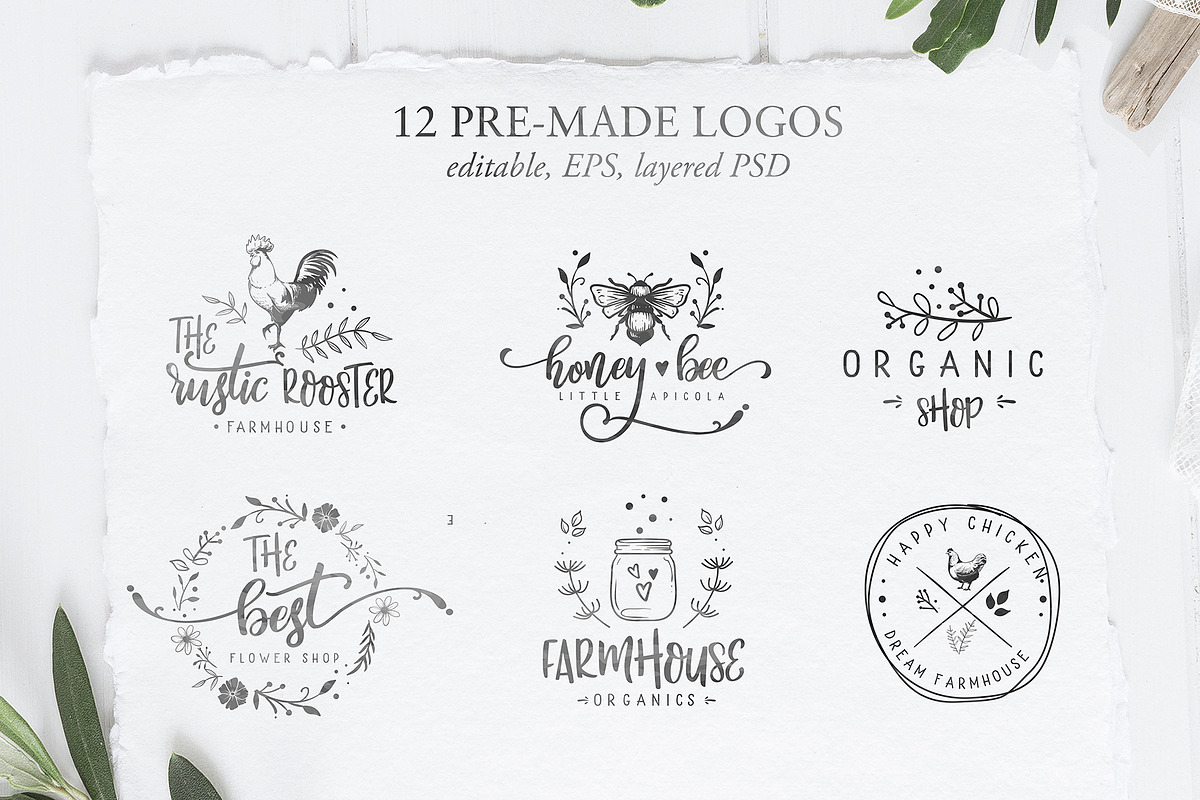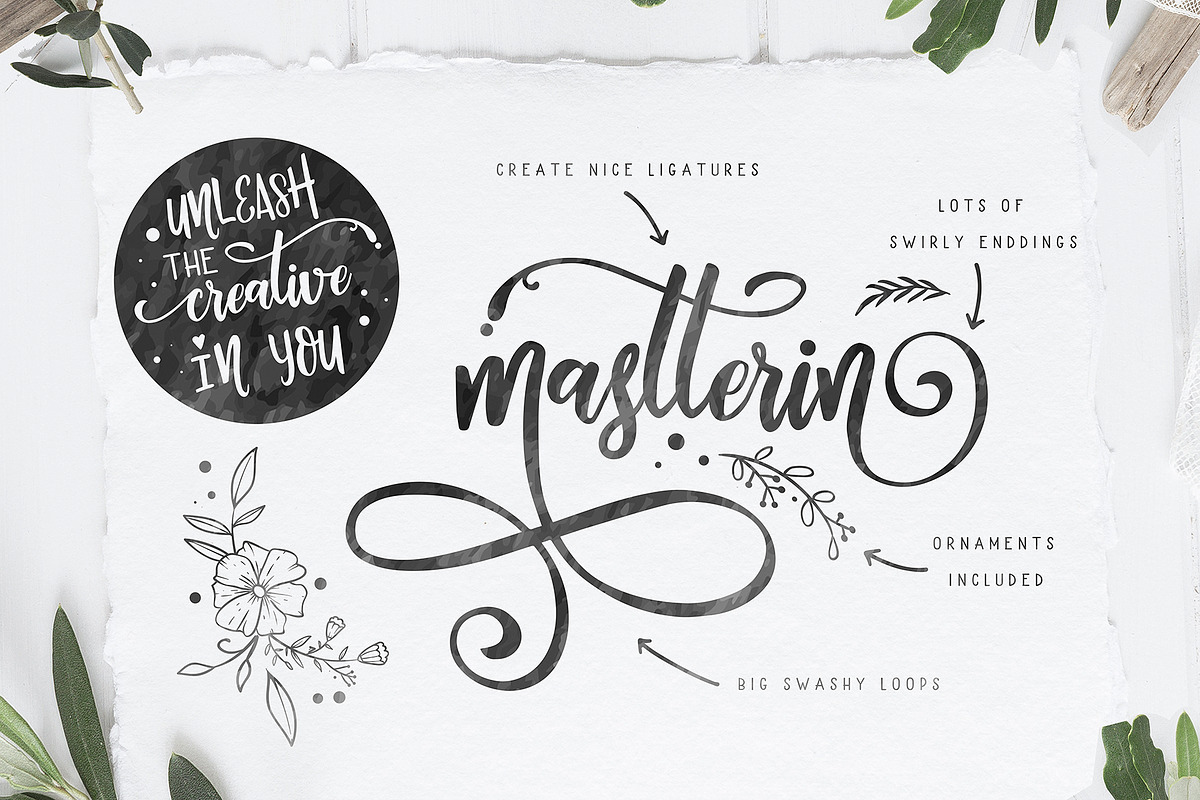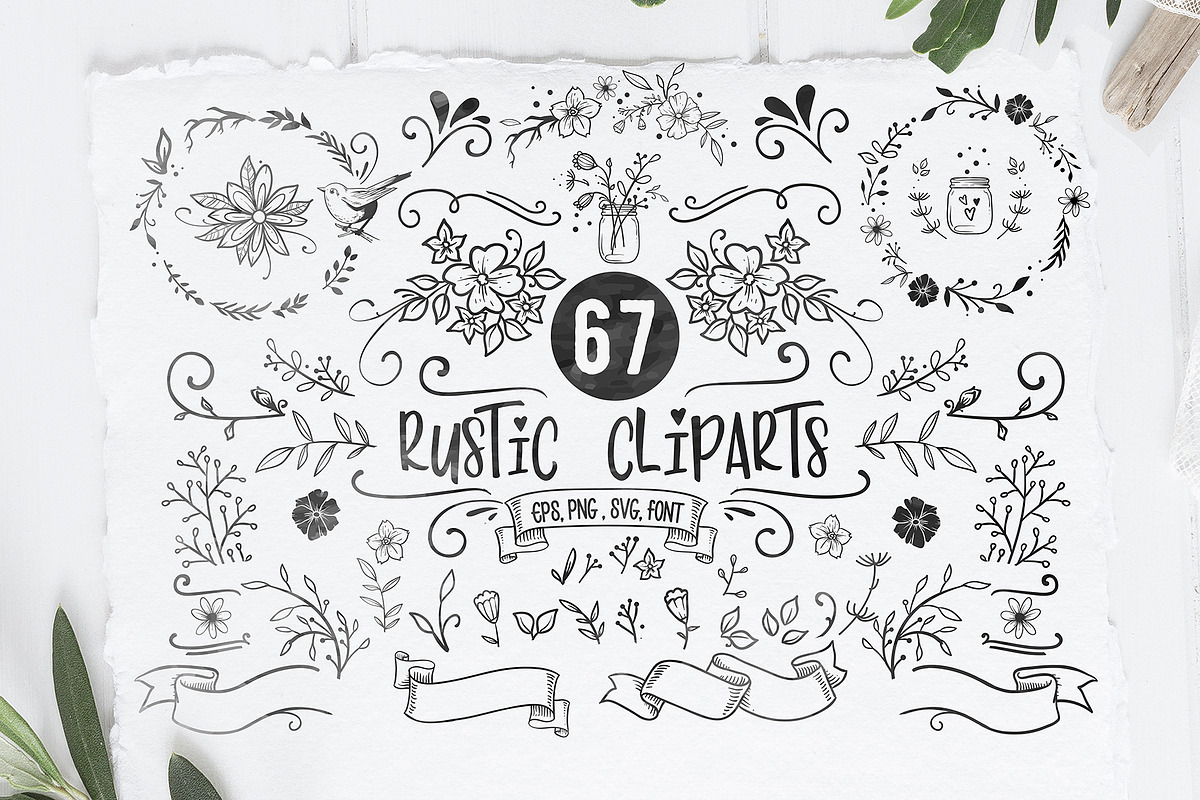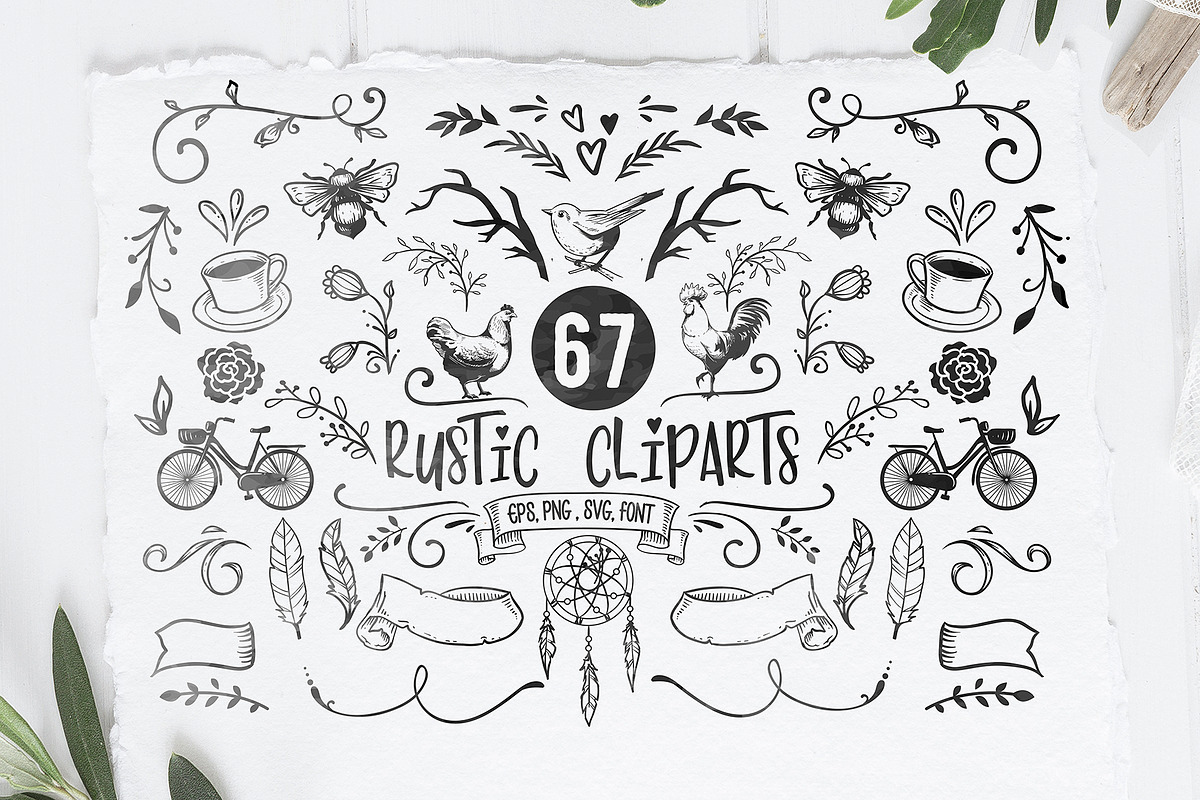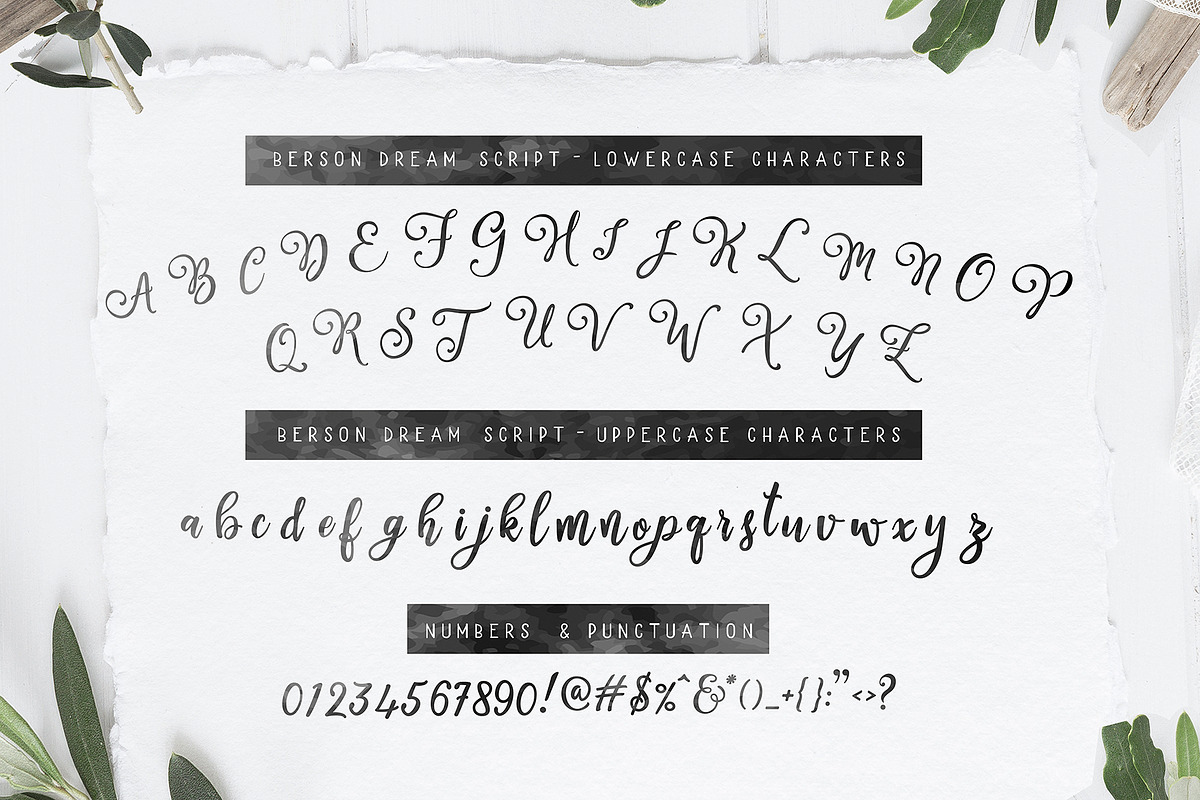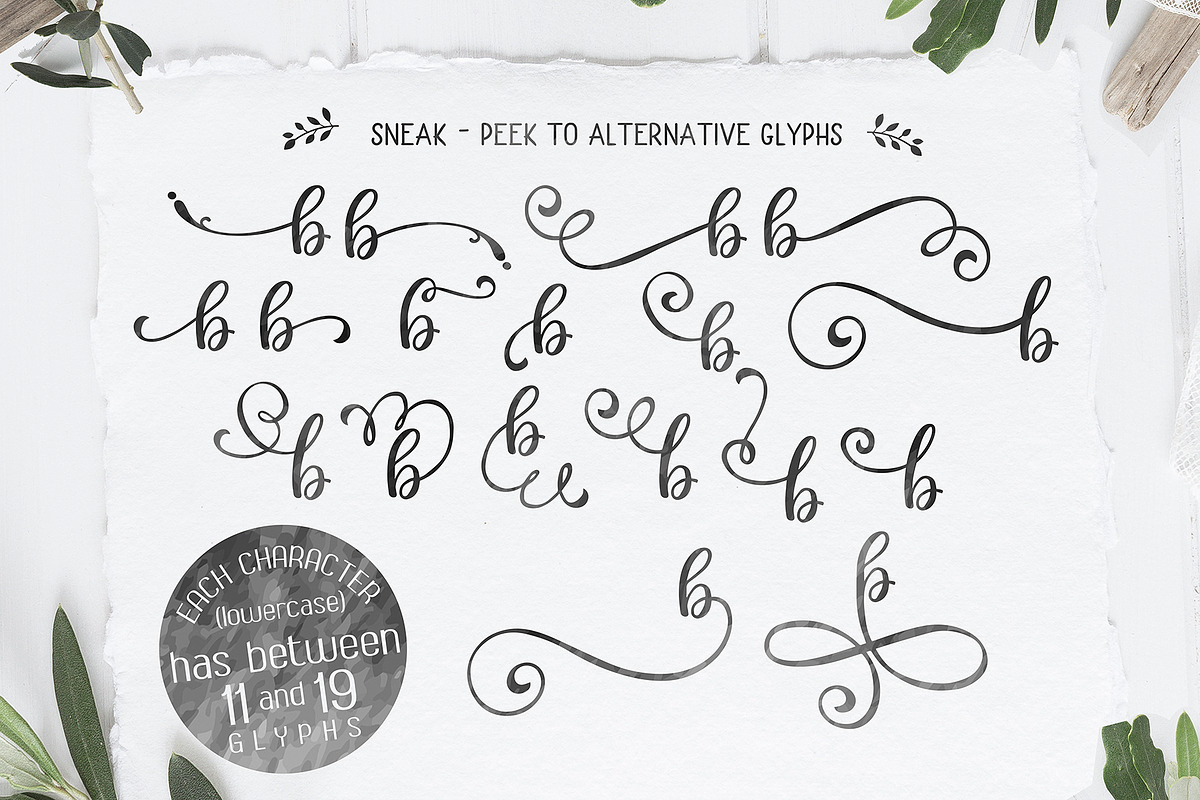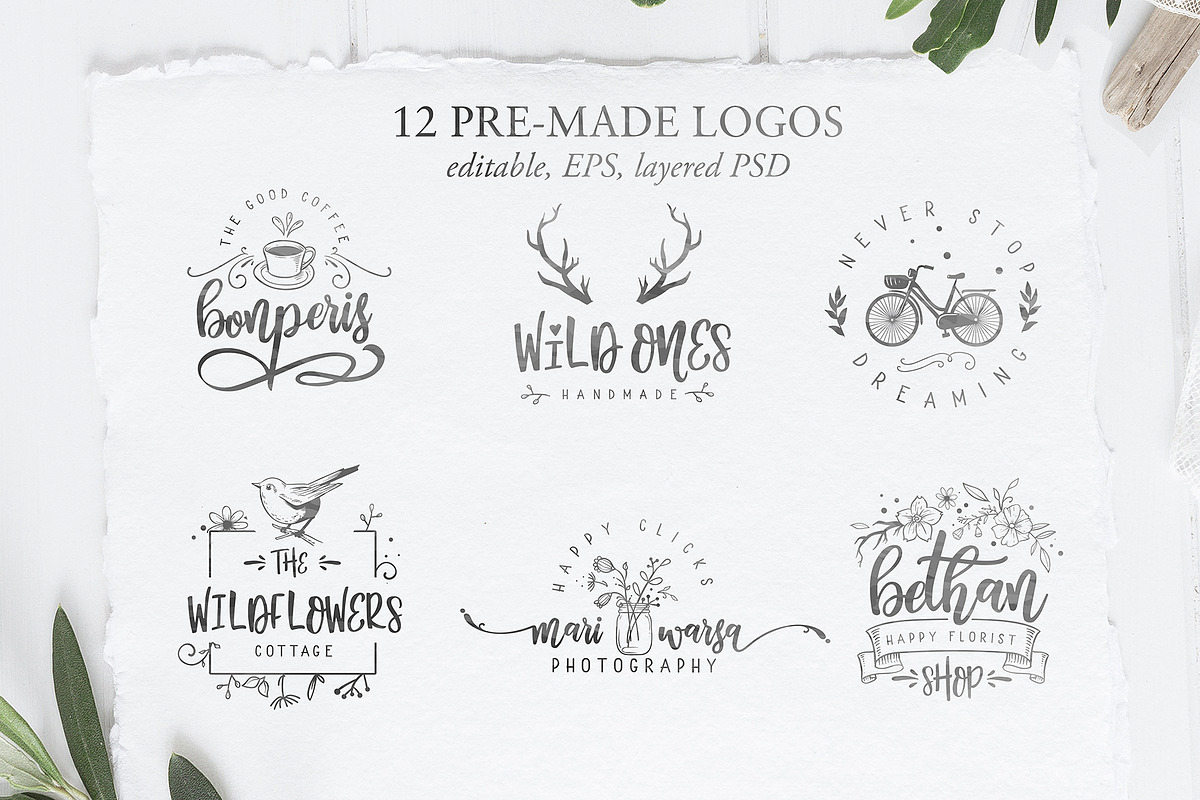
Berson Dream Font TRIO and extras
Berson Dream is a font family containing 3 complementary fonts and an extra font containing rustic illustrations.
It includes lots of alternative glyphs that you can play with (more than 340!) and lots of cliparts in font format as well as EPS, PNG and SVG. Please check all lowercase, uppercase and numerals to access all cliparts in font format.
The best tool if you want to create t-shirt designs, mug designs, logos or just play around.